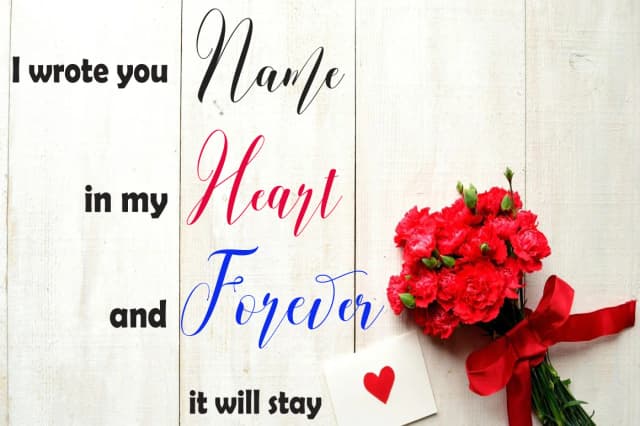
Melisca by Cooldesignlab is a handwritten script font that infuses flowing elegance and organic warmth into design projects of all kinds. Featuring multiple swash alternates throughout its character set, this typeface strikes a balance between expressive letterforms and strong legibility across both digital and print applications. The carefully crafted letterforms capture the personality and authenticity of hand-drawn typography while avoiding the inconsistencies that sometimes plague sketch-based typeface releases. This script font truly shines in niche design applications that demand both sophistication and distinctive visual character. Wedding invitation suite designers leverage Melisca to convey romantic sentiment through its flowing curves and dynamic letterforms, while boutique skincare and beauty brands employ it on premium product packaging to communicate upscale positioning and brand identity. Small business owners choose it for custom vinyl decal designs and storefront signage that needs handcrafted appeal, and content creators favor it for event announcement posters and social media graphics where authenticity strengthens customer engagement. The swash alternates provide the creative flexibility to shift individual letterforms based on design context and mood requirements. Melisca's true strength lies in its adaptability across multiple project types, from wedding stationery design to limited-edition product labels, without the font feeling overused or generic. Find Melisca on Creative Fabrica and start incorporating this expressive script typeface into your design toolkit.
- Elegant, Flowing, Melisca
Melisca Font is a script font that shines as a display or heading face. Pair it with a clean sans-serif or serif font for body text β the contrast creates a clear hierarchy while the two styles stay balanced and easy to read.